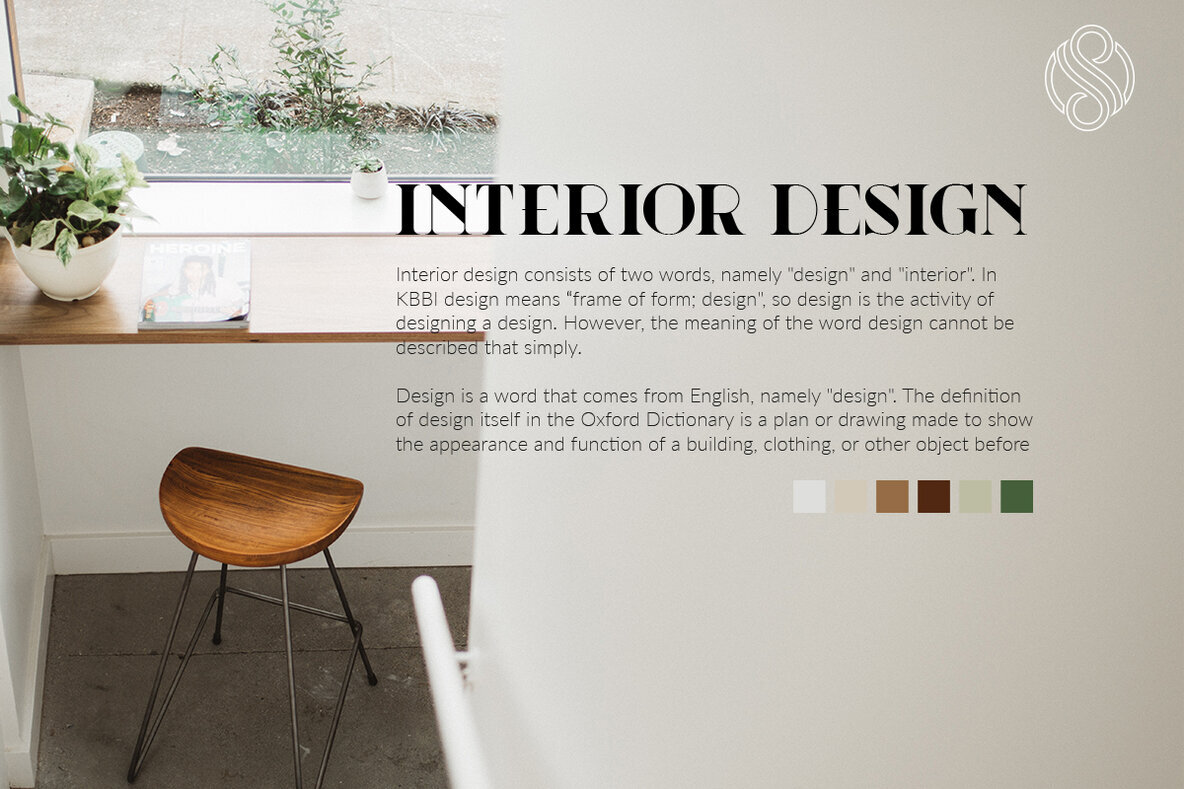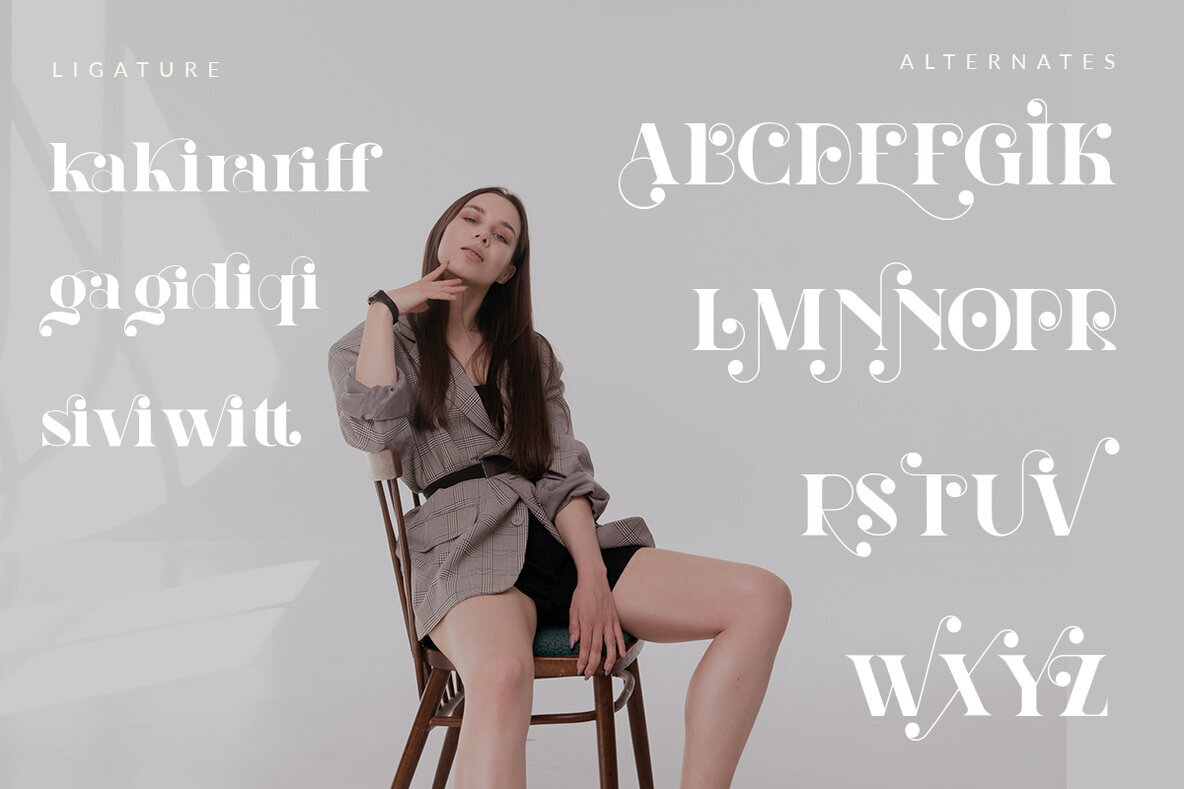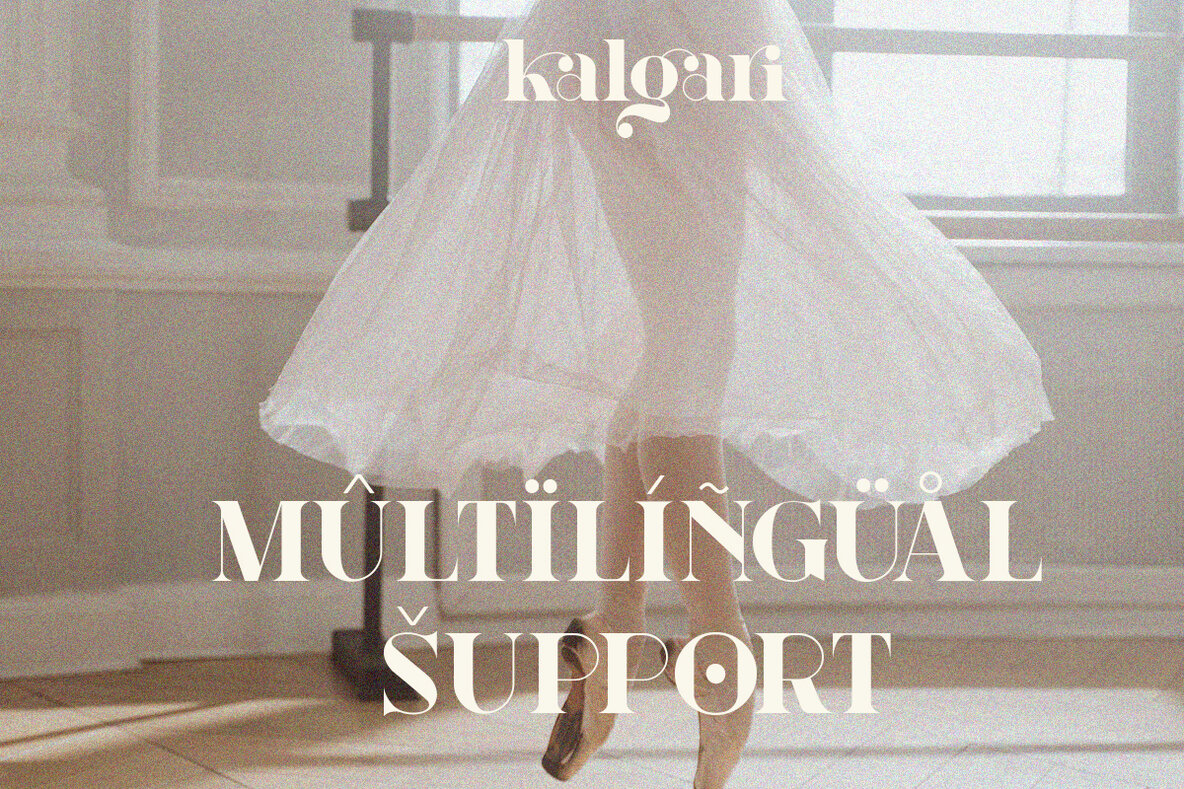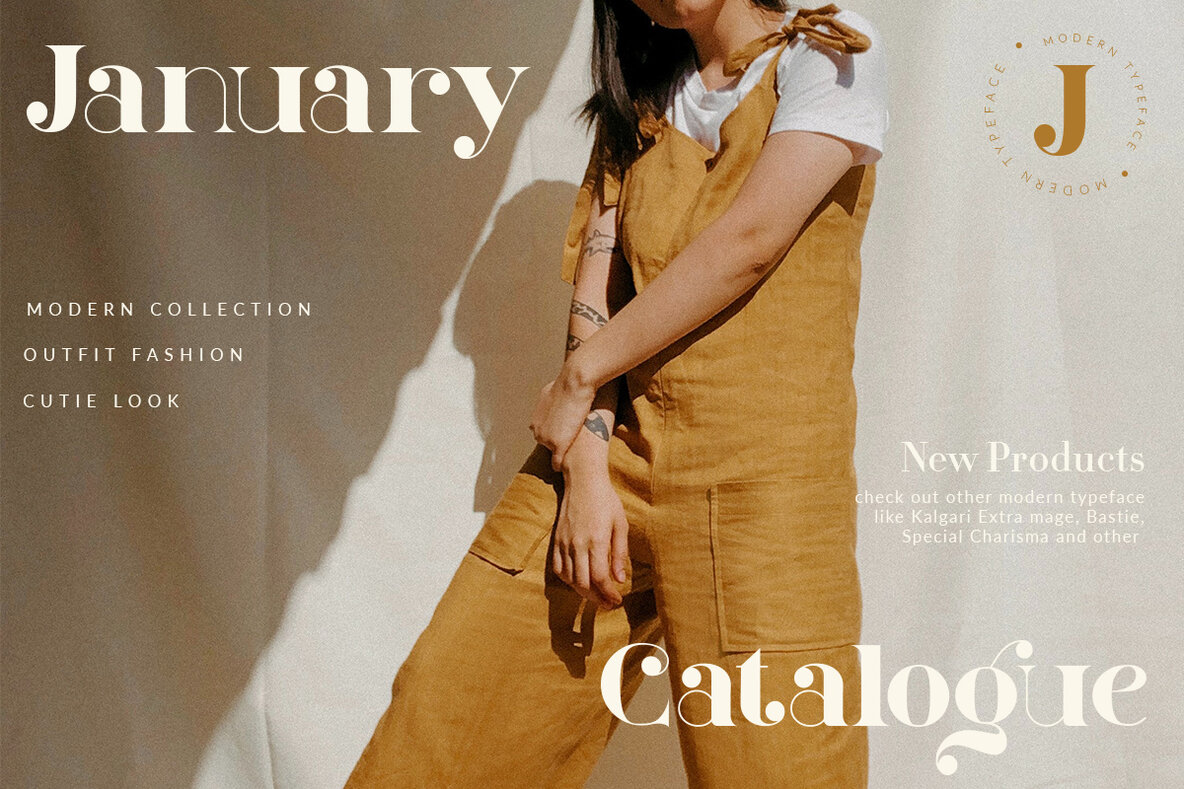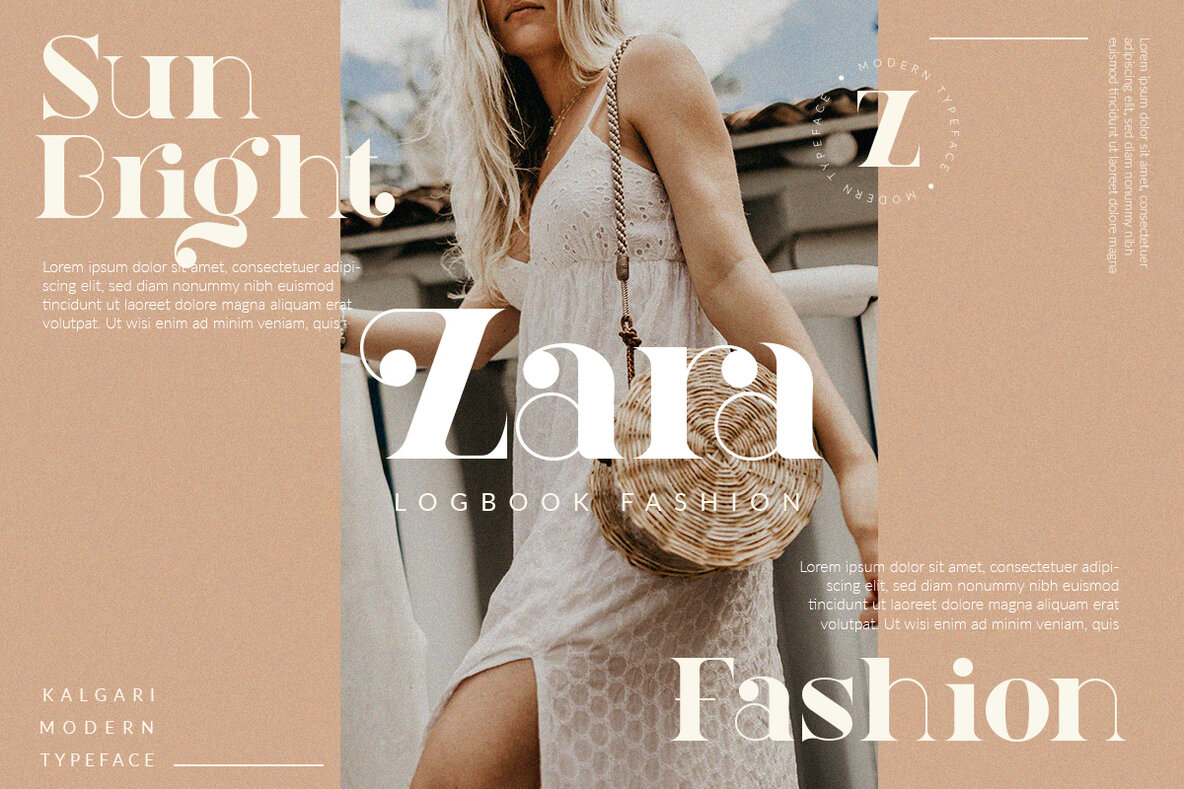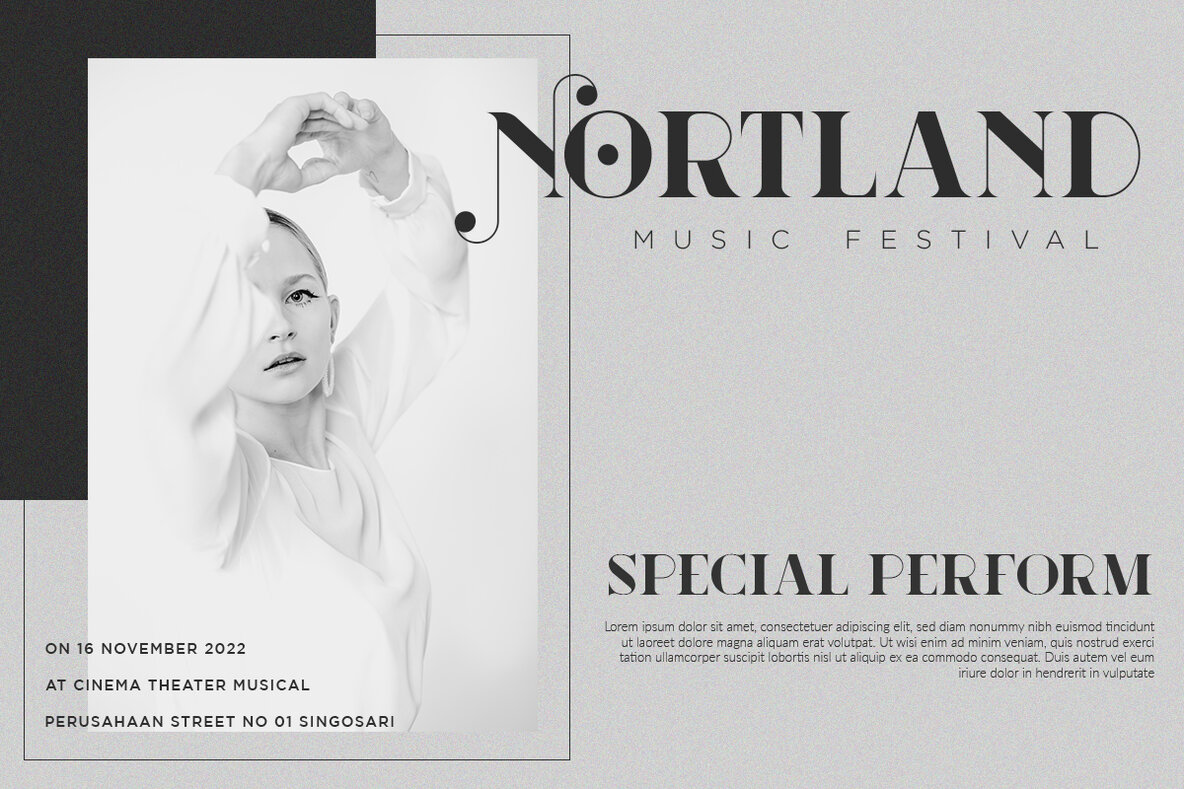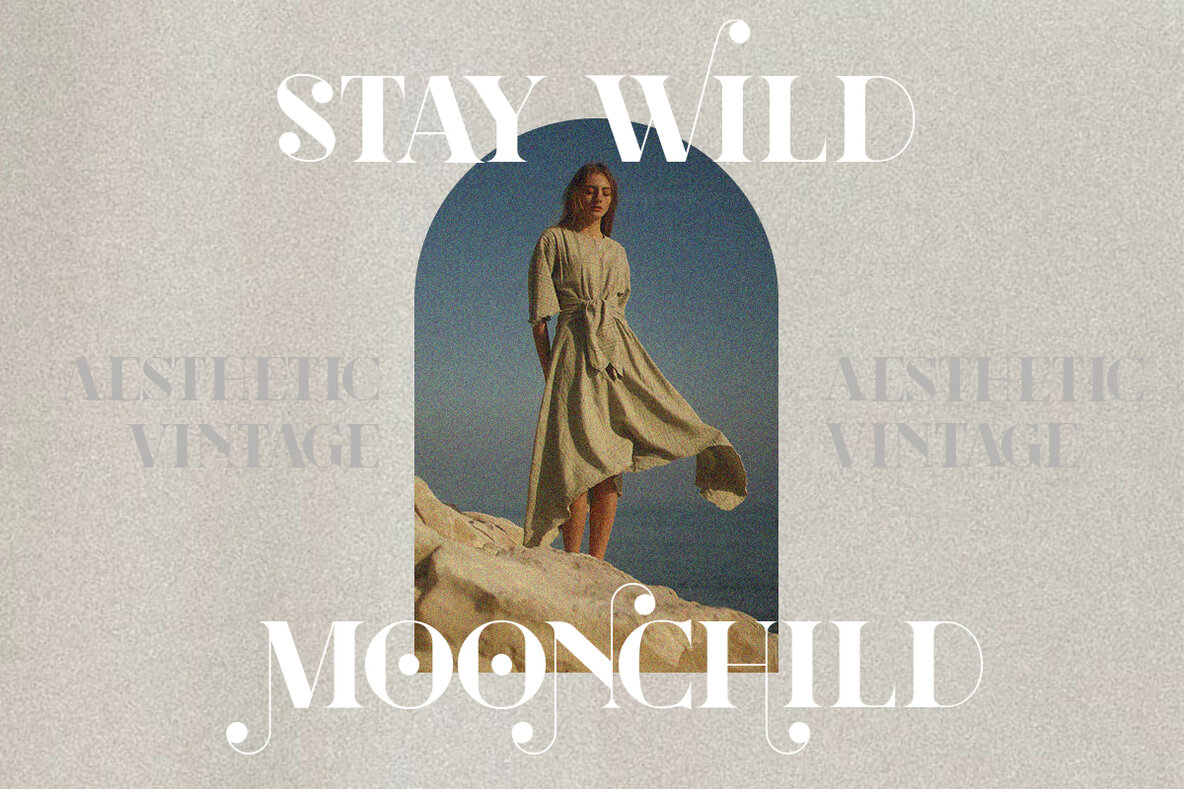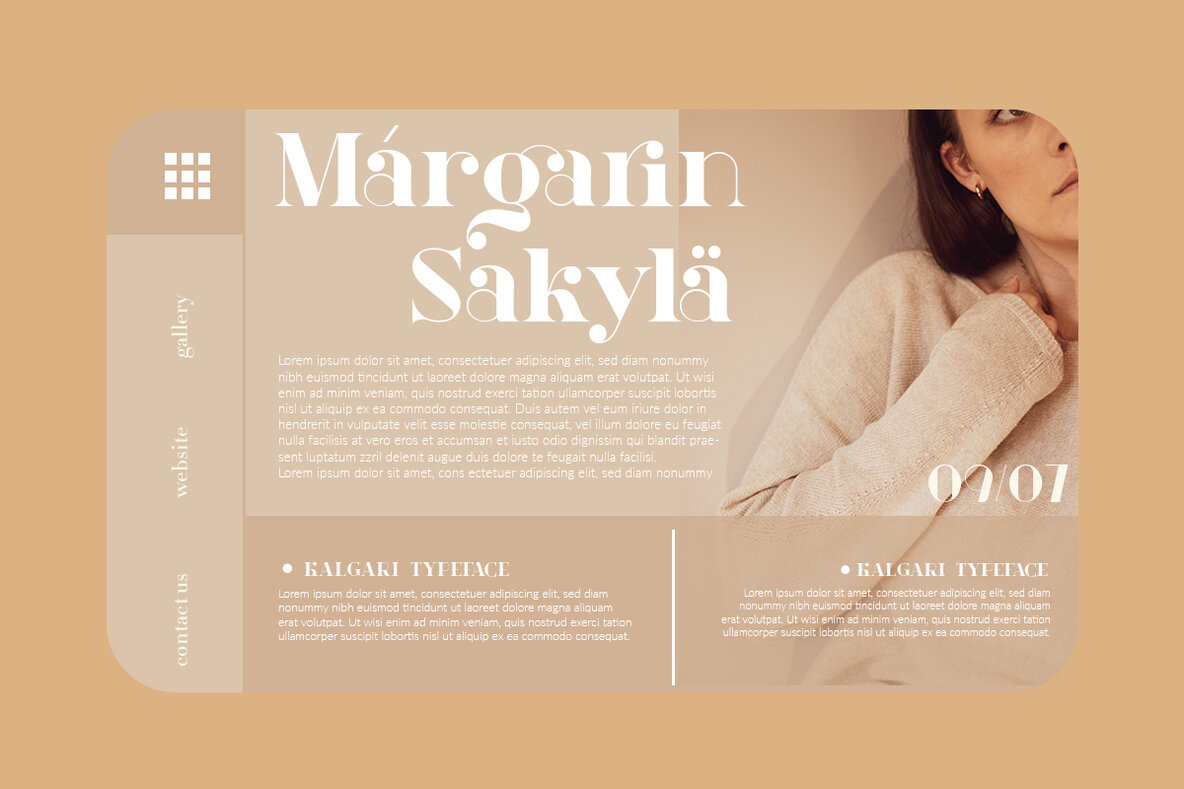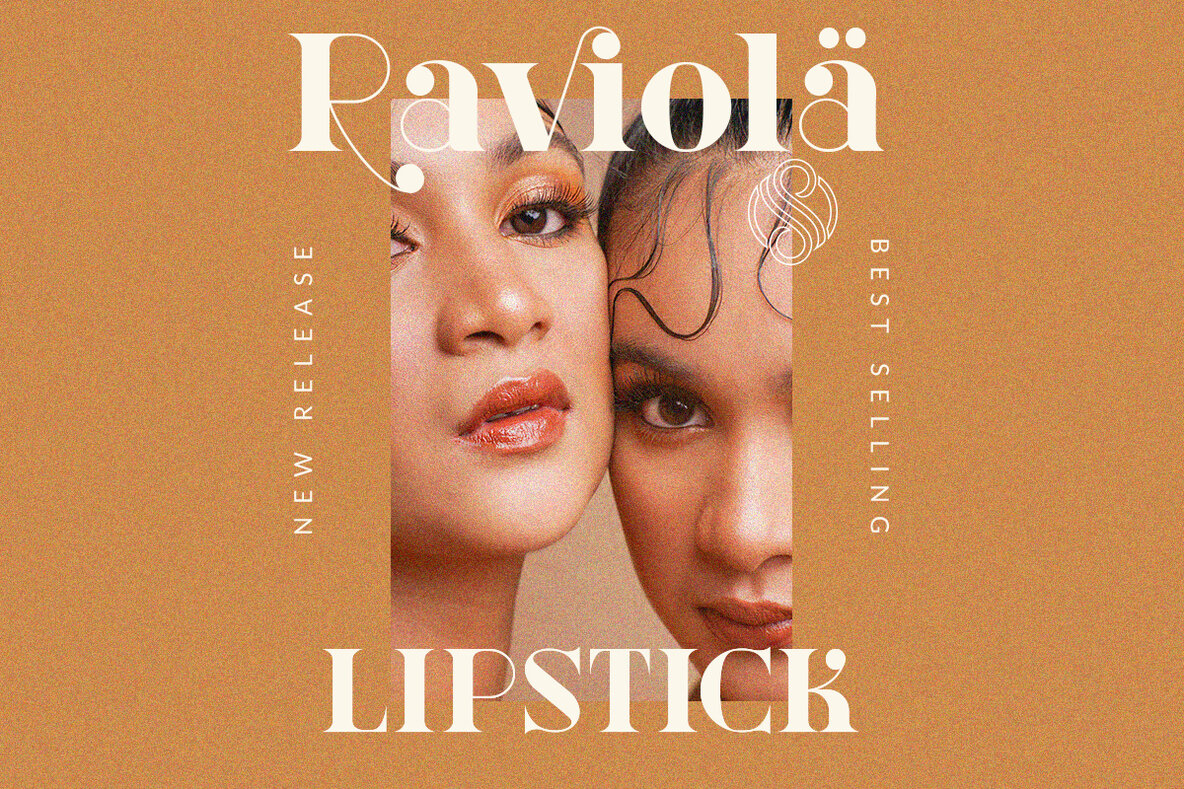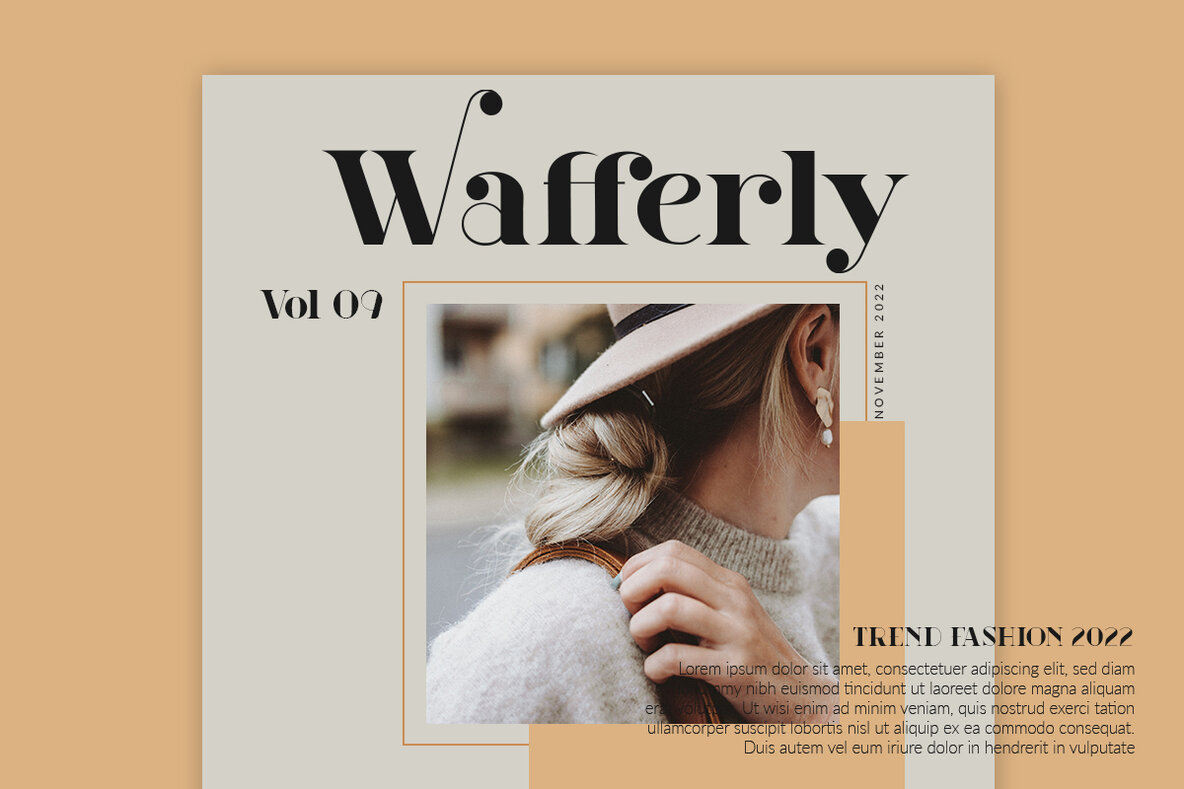
Kalgari Font
Kalgari
Kalgari offers a singular blend of versatility and elegance, making it a prime choice for various design ventures. Ideal for the free-wheeling aesthetics of bohemian designs, it also lends a sophisticated touch to editorial projects. From branding to logo creation and product packaging, Kalgari is a distinguished serif that enhances textiles and magazine headers alike. Designers can easily access the alternate characters through the glyphs panel. In Adobe Photoshop, navigate to Window, then glyphs. In Adobe Illustrator, go to Type, then glyphs. Elevate your design projects by integrating the distinct character Kalgari brings to the table.Kalgari: Modern Serif for Diverse Design Styles